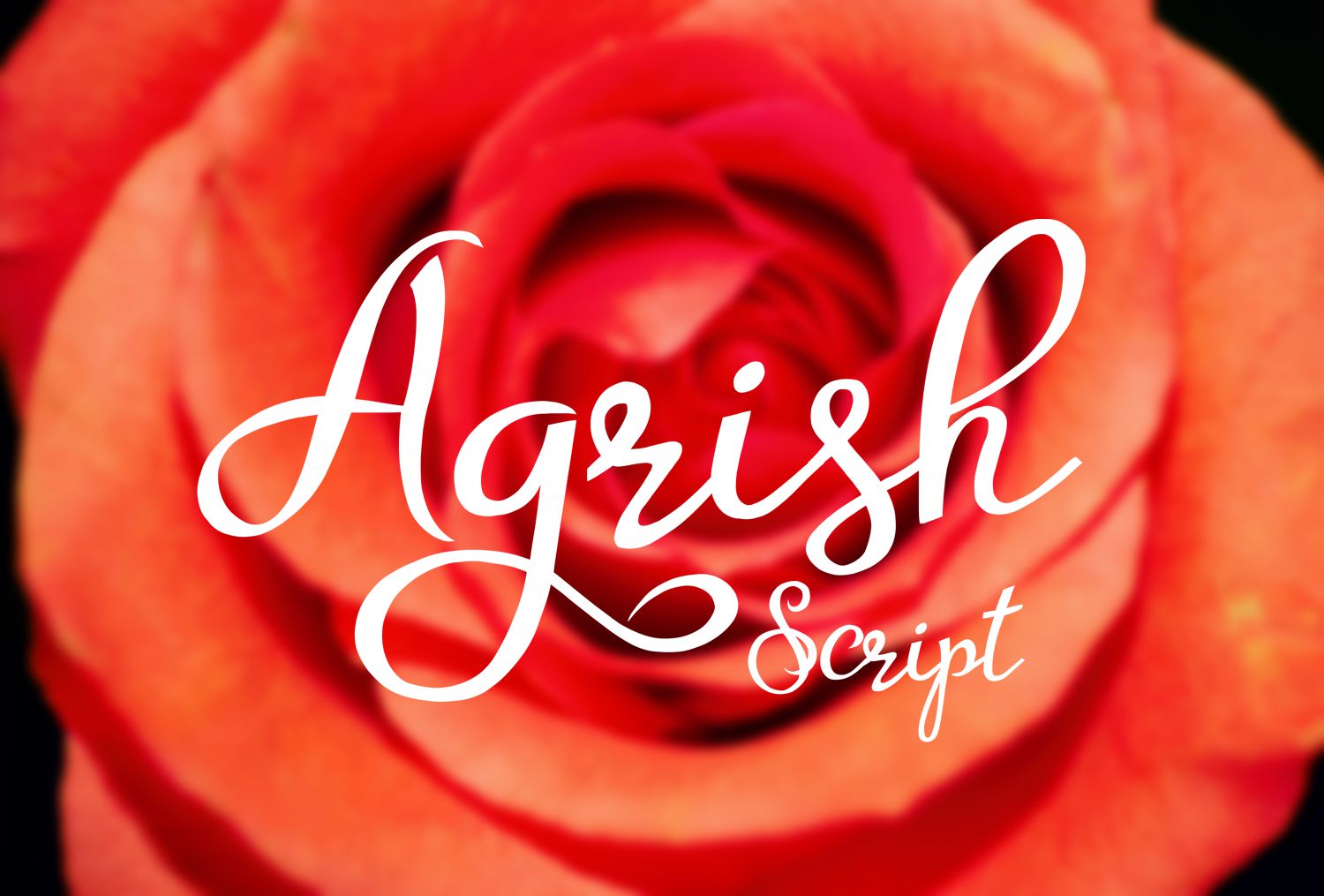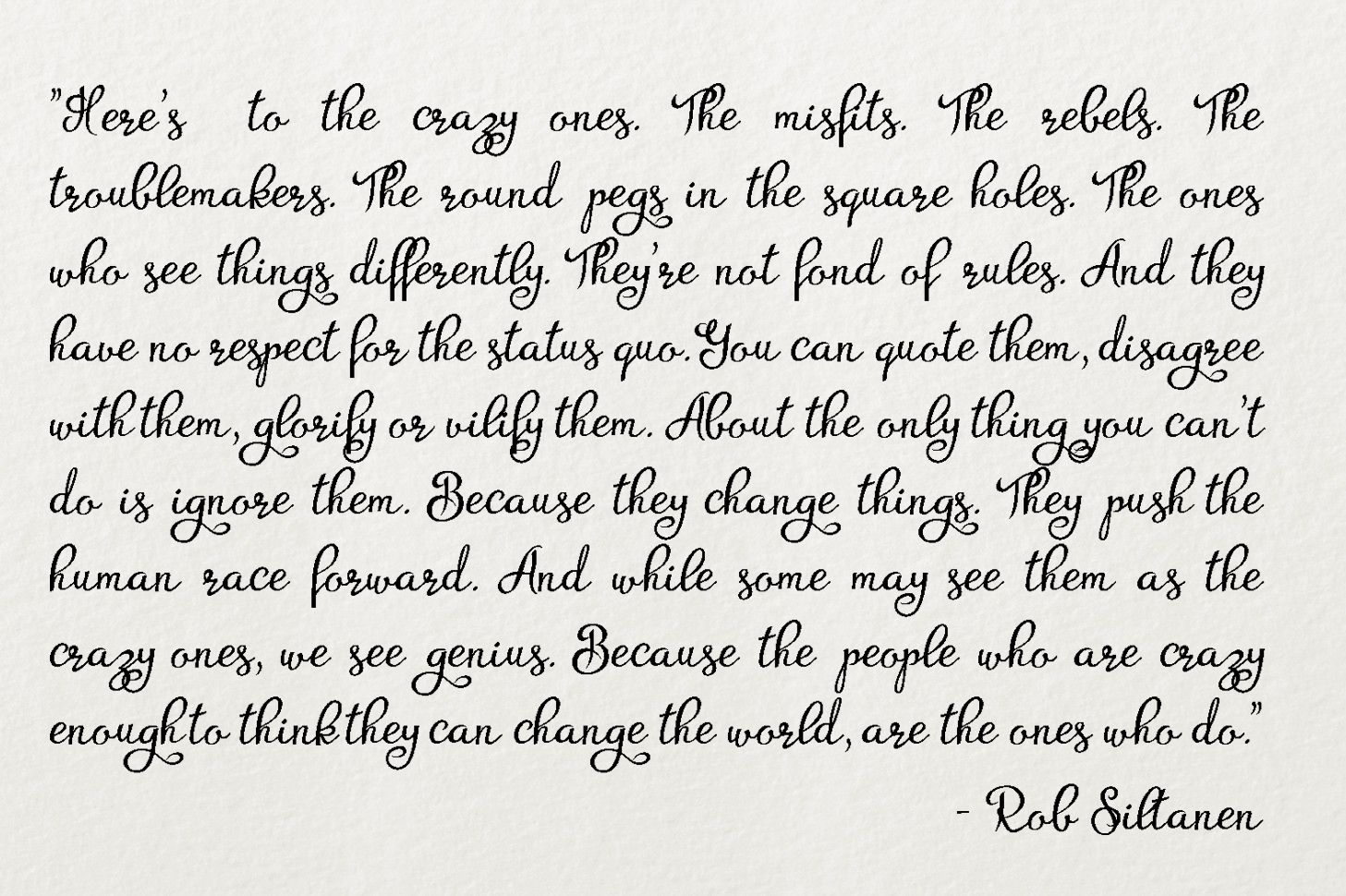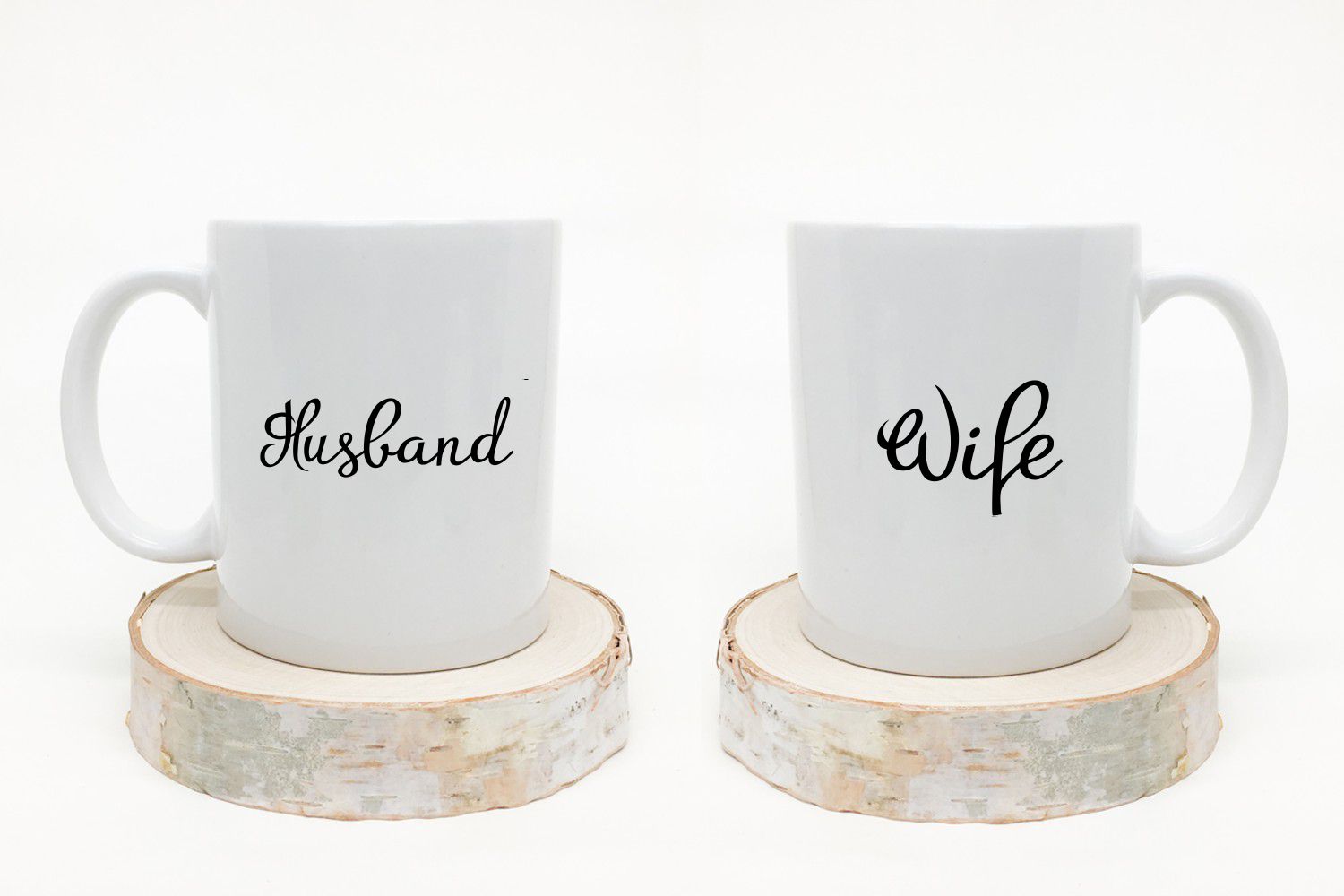
Agrish Font
About Agrish Font
Agrish is a gorgeous script font, ideal for use in a wide range of projects. This font is a great way to give some personality and intrigue to your designs.